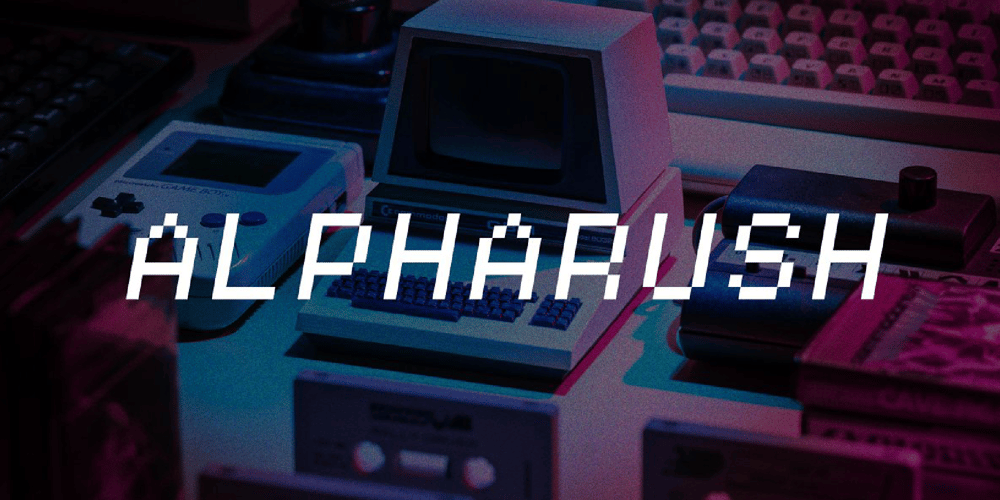
Alpharush Font Family was designed by Igor Ovsyannykov and published by Hipfonts. Alpharush contains 1 styles and family package options. Alpharush is a retro bitmap typeface perfect for pixel art and 8bit games. It’s good for any design project which requires that nostalgic 80s feeling.